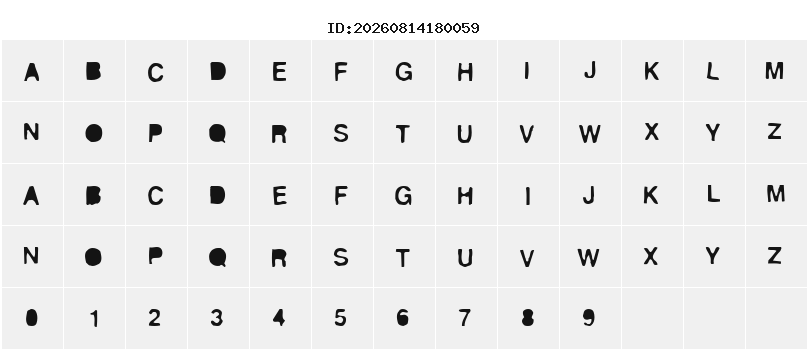
Sticky.ttf is a modern, elegant sans-serif font designed for ultimate readability and visual harmony. Perfect for branding, headlines, web design, and print materials.